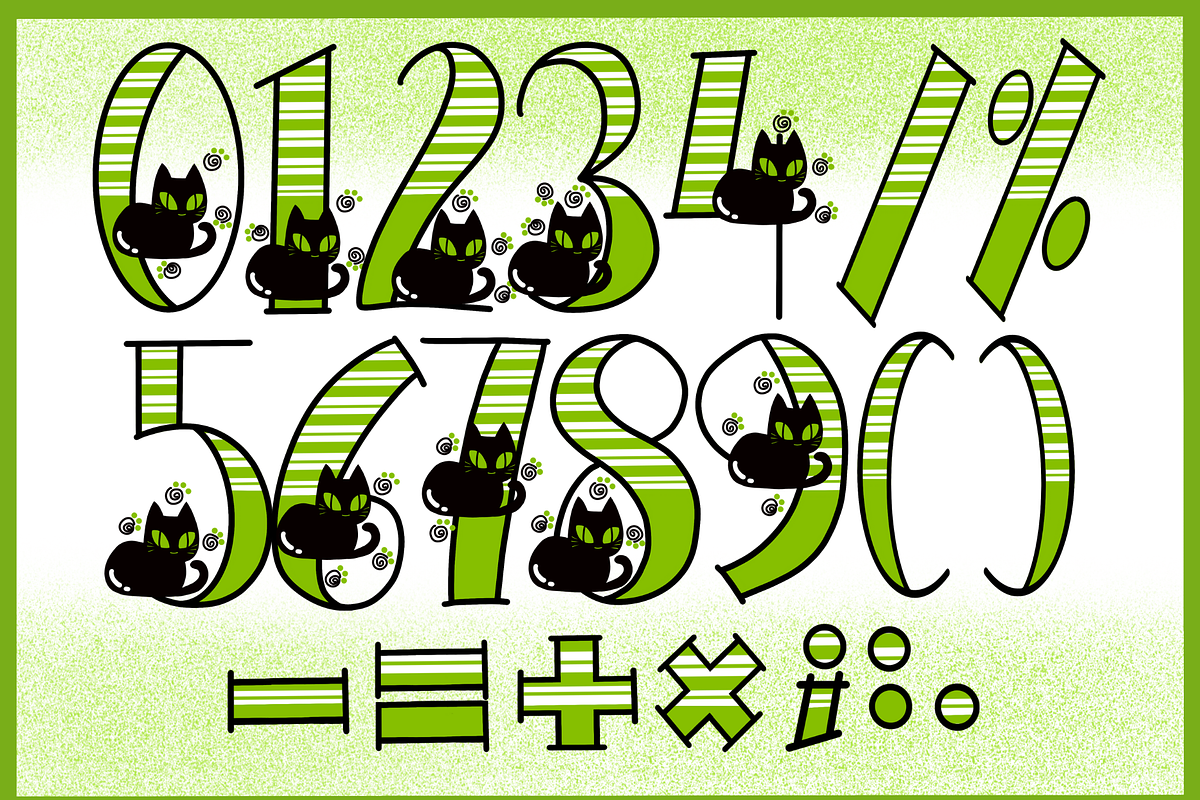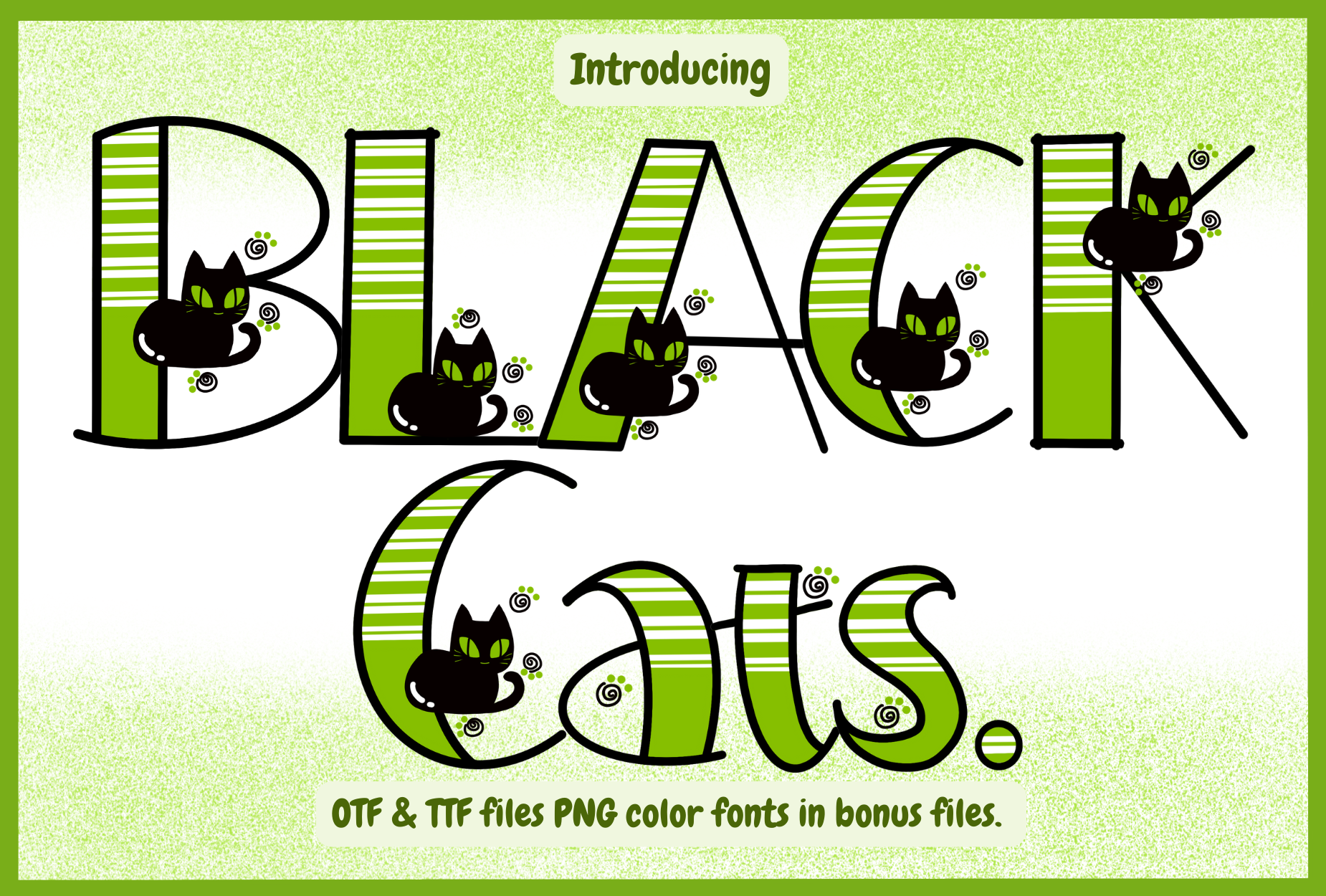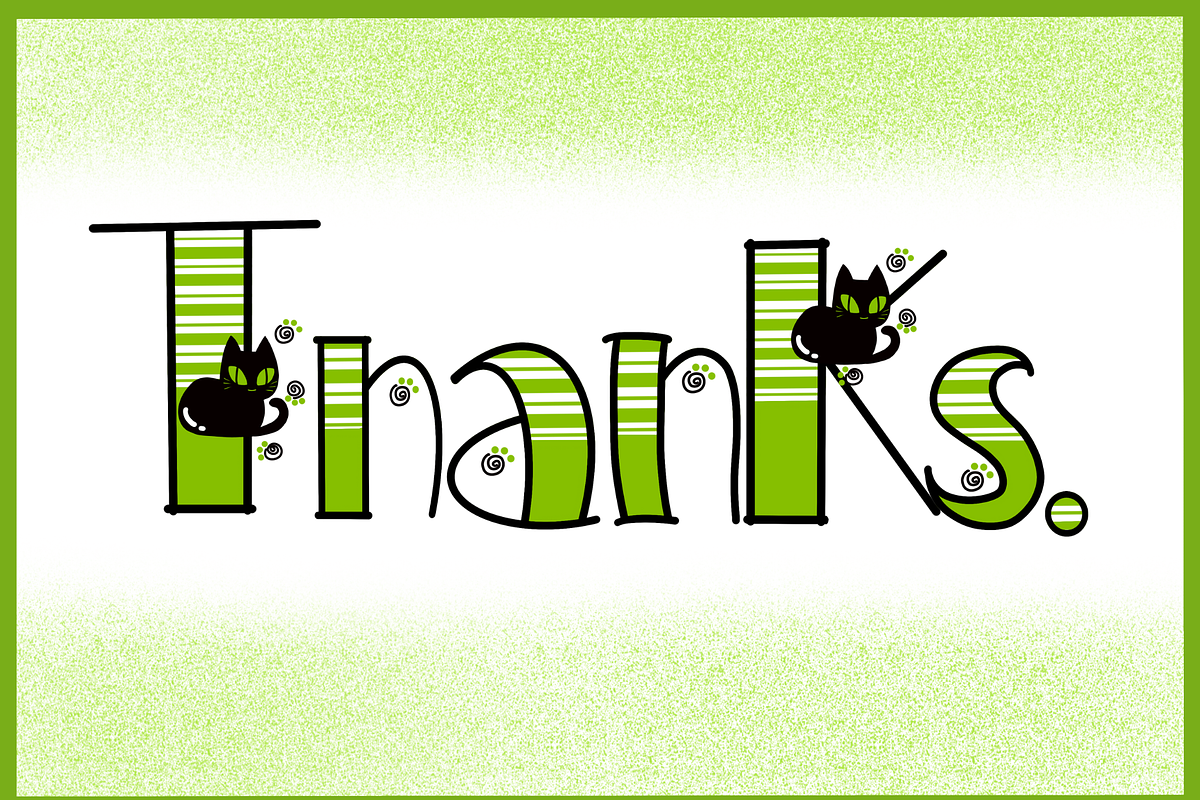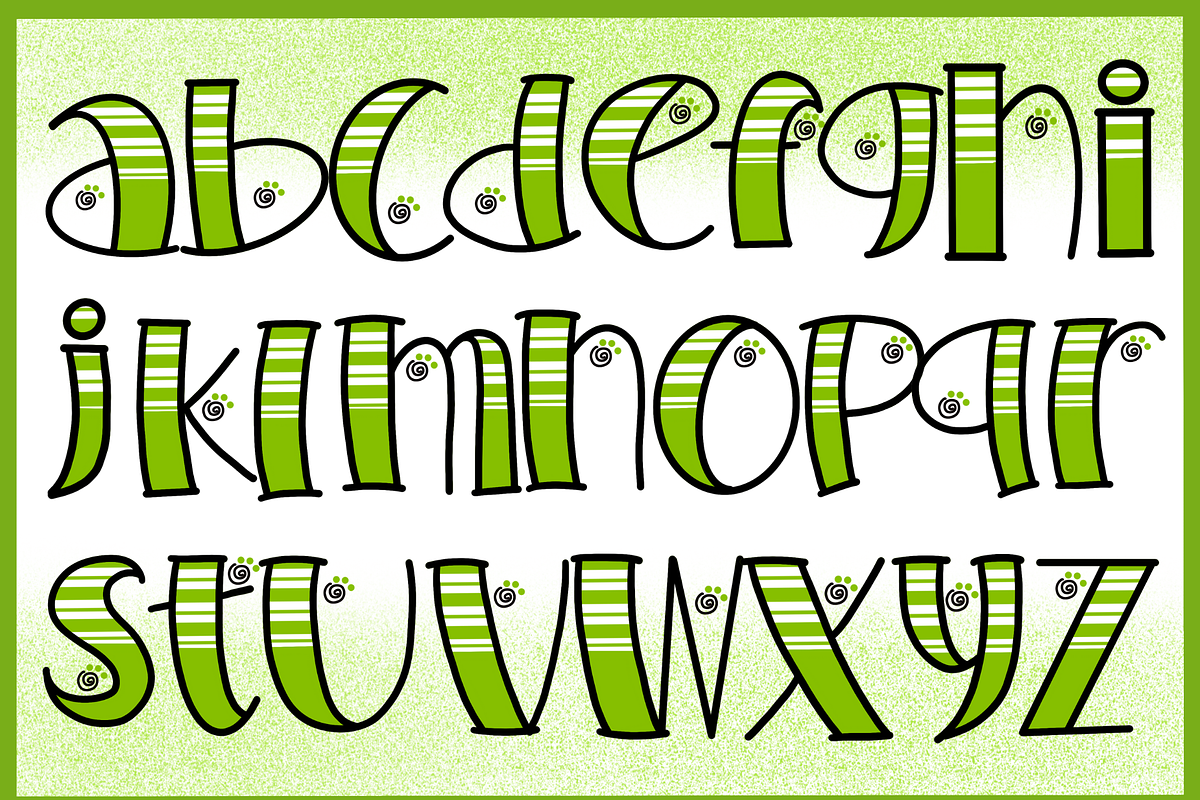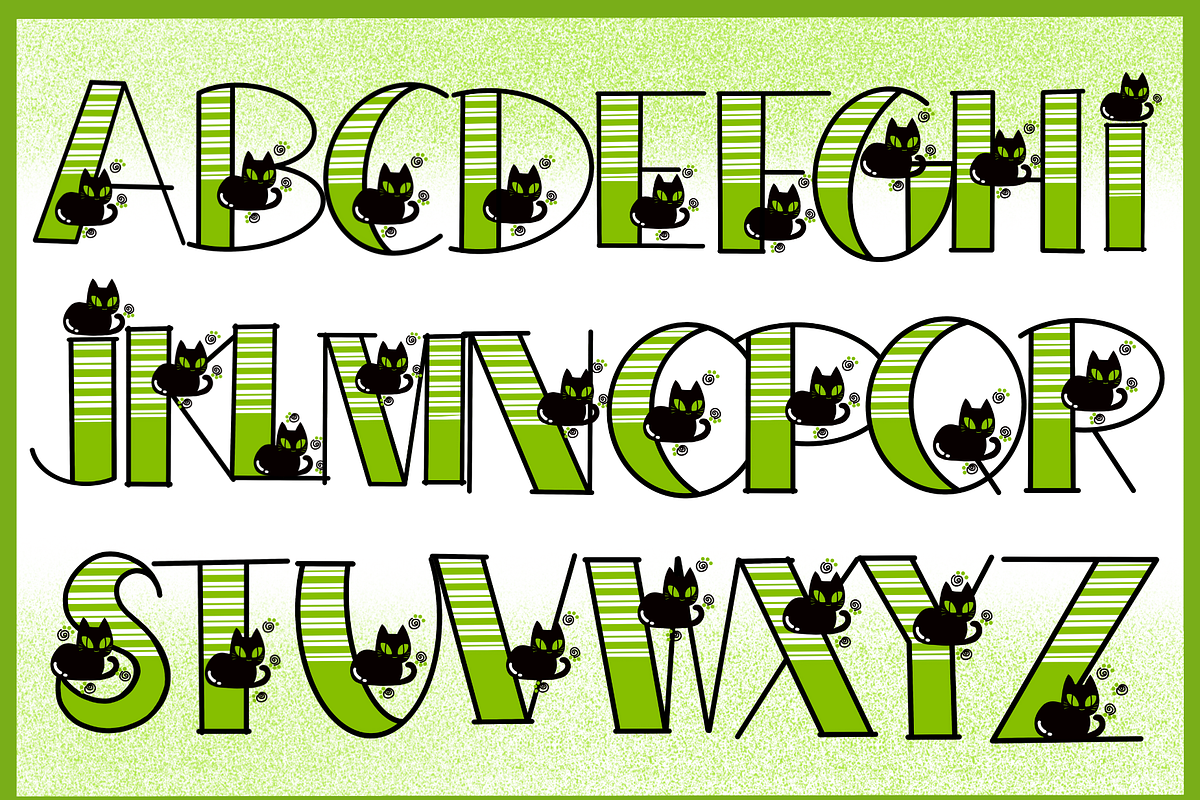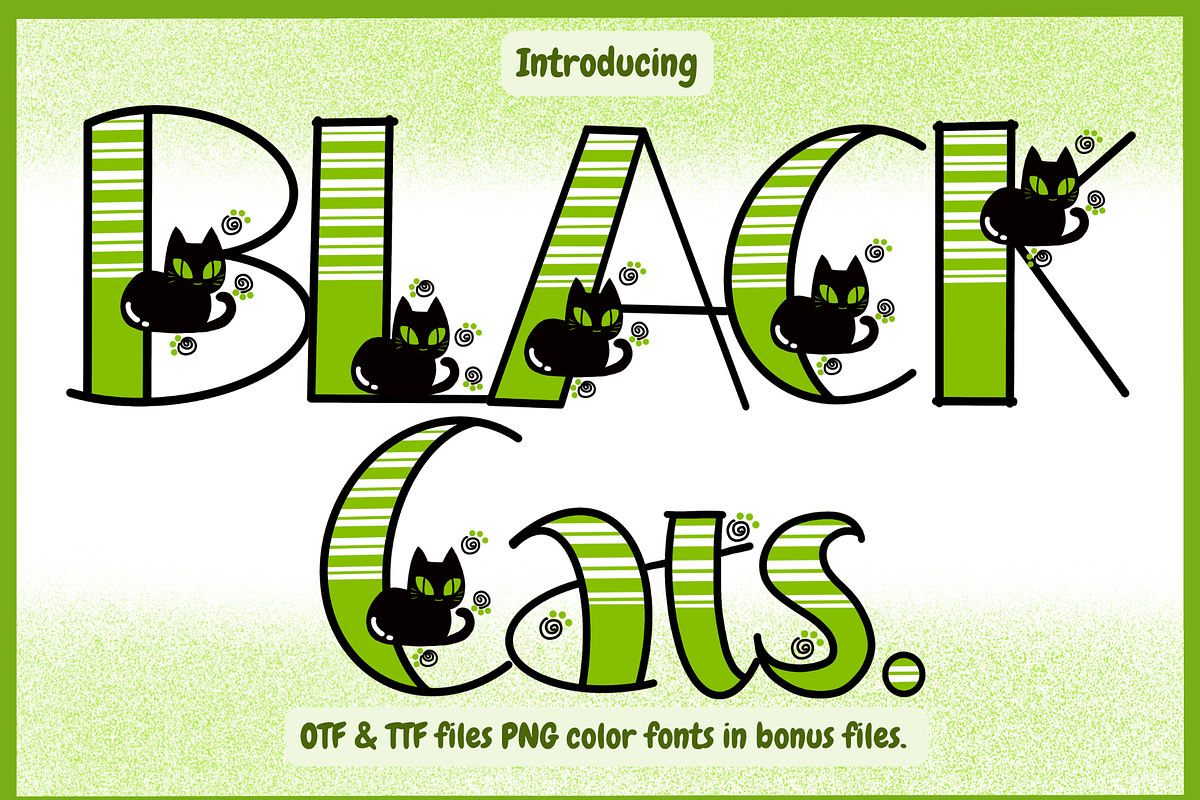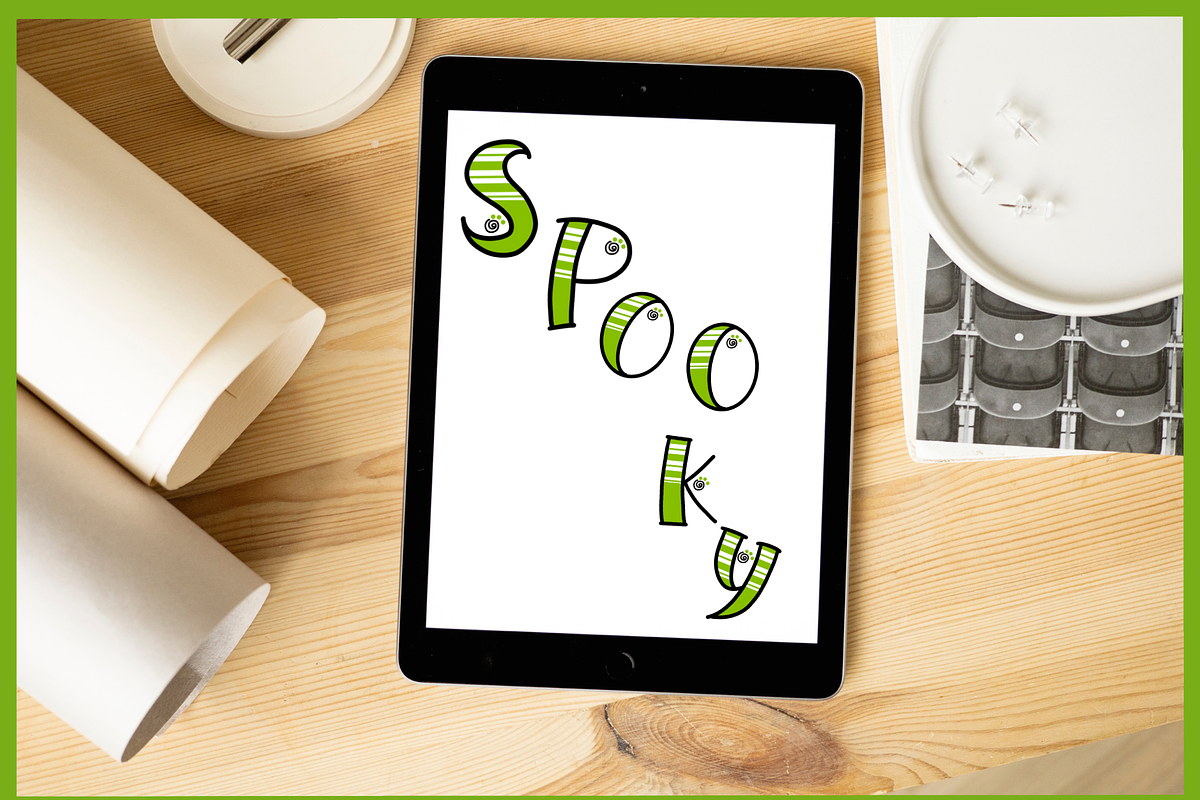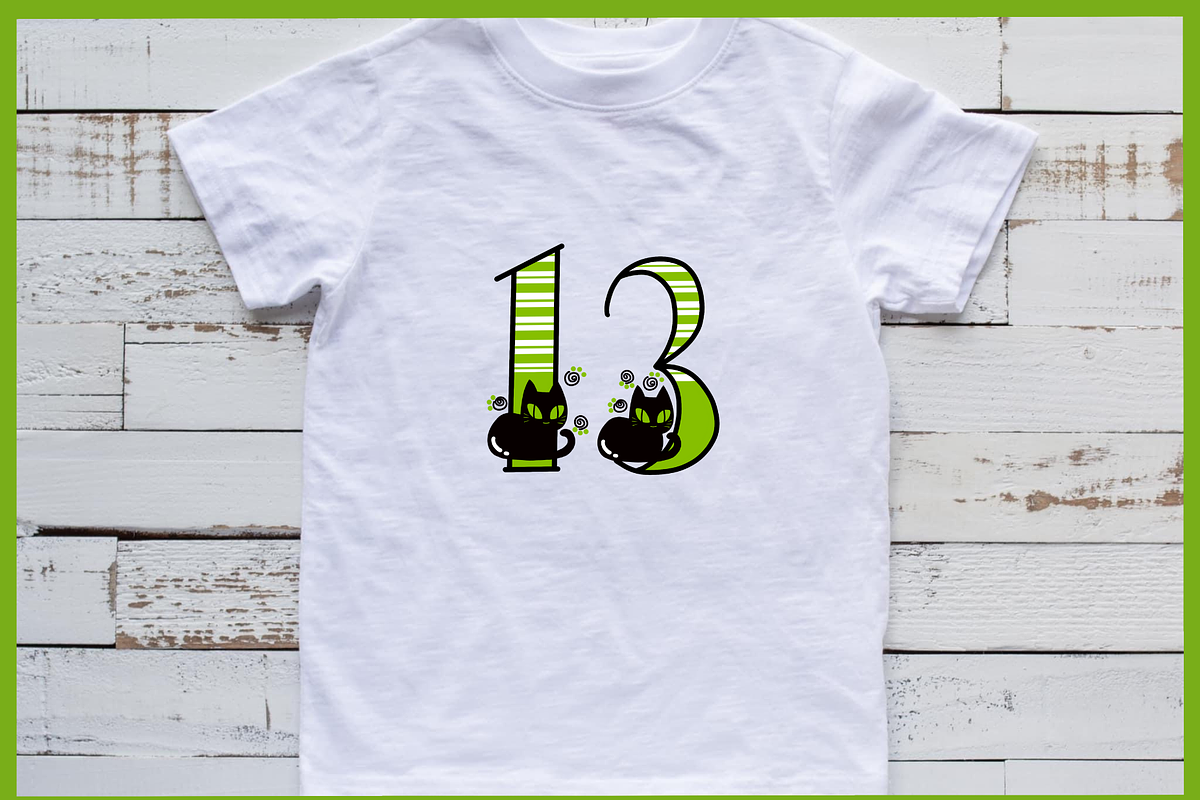
Black Cats Font Black Cats is a unique and interesting halloween font. A little bit quirky, this font looks incredibly adept on a wide variety of contexts!